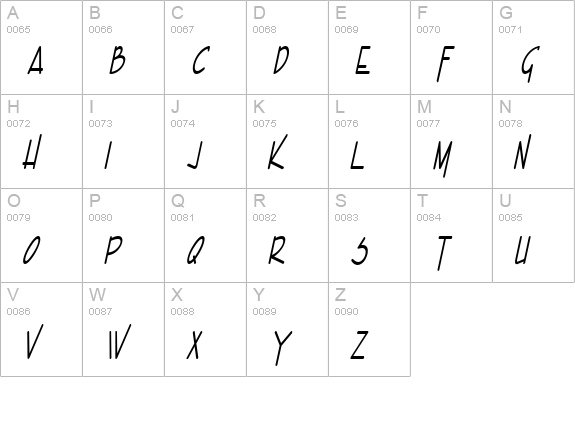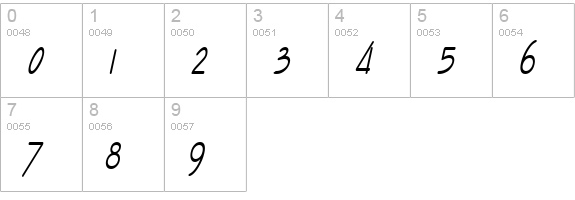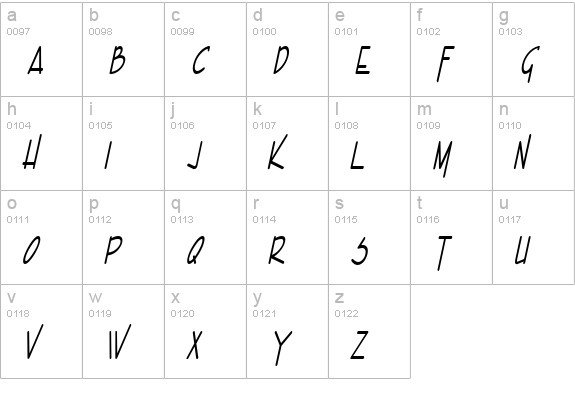
Enview Xtra Light BoldItalic is a refined, elegant variant in the Enview typeface family \xE2\x80\x94 well suited to elegant body text, refined sub-headings, and luxury branding.
Enview Xtra Light BoldItalic font is a stylish and modern typeface designed for eye-catching designs and creative projects. With its bold yet elegant appearance, this font exudes a sense of sophistication and professionalism. The sleek lines and unique curves of Enview Xtra Light BoldItalic make it perfect for adding a touch of flair to any design. This versatile font is ideal for a wide range of design applications, from branding and advertising to web design and print media. Whether you're creating a logo, poster, website, or any other project, Enview Xtra Light BoldItalic will help you make a bold statement and stand out from the crowd. Best of all, Enview Xtra Light BoldItalic font is available for free download at FontsMarket.com. This means you can easily access this stunning font and use it in your projects without any cost. Don't miss out on the opportunity to enhance your designs with the sleek and stylish Enview Xtra Light BoldItalic font. Download it today and take your designs to the next level!